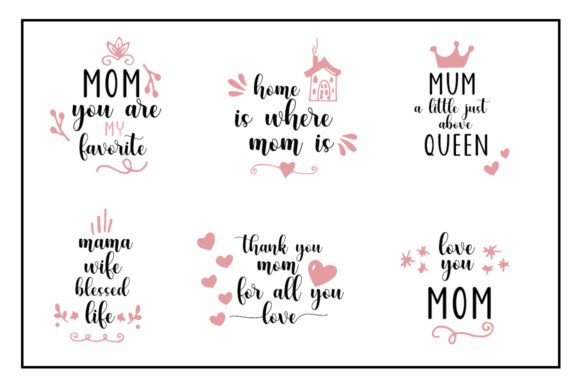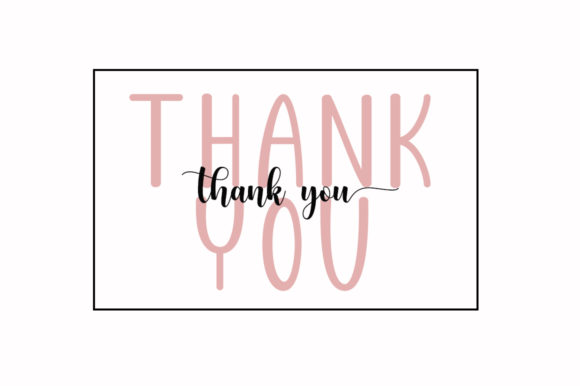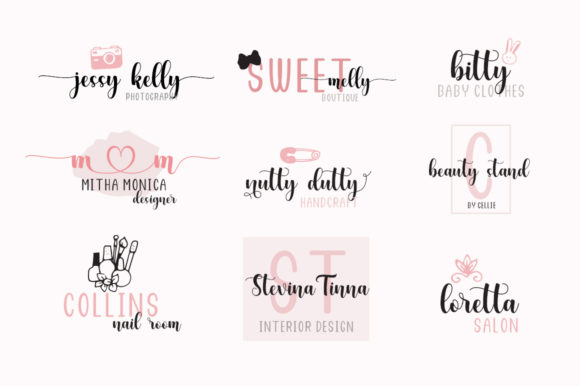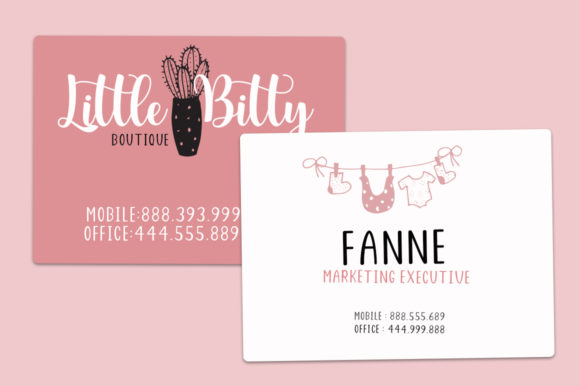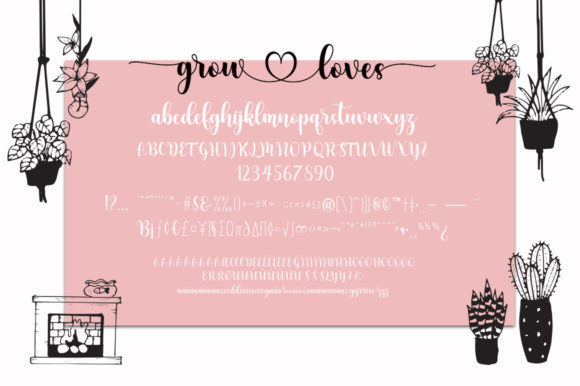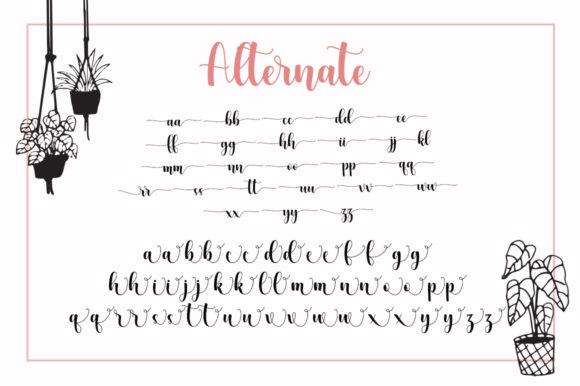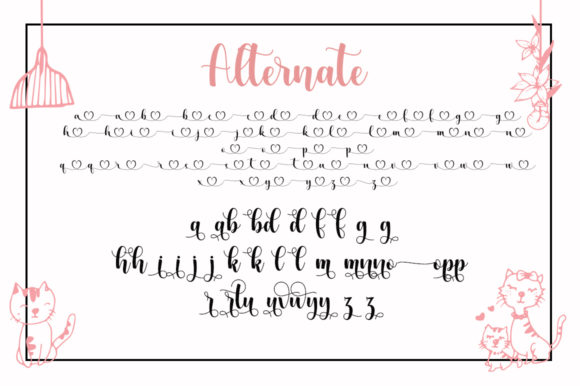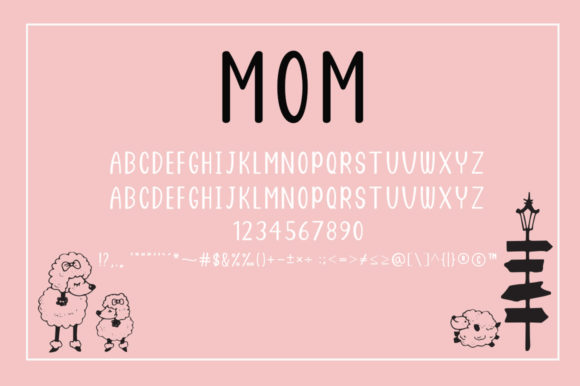
Mom Grow Loves Font
About Mom Grow Loves Font
Mom Grow Loves is a lovely and delicate duo font (sans serif and script). Its distinct and refined letters make this font a masterpiece. Fall in love with its incredibly versatile style and use it to create spectacular designs!